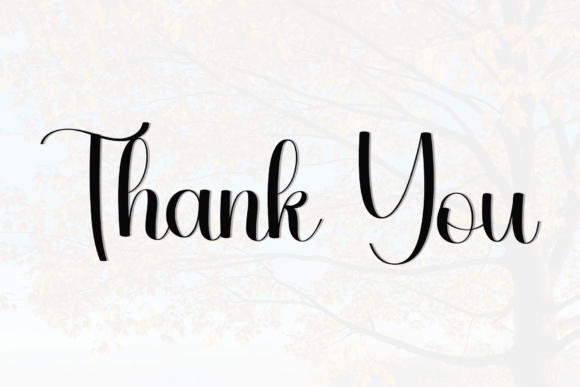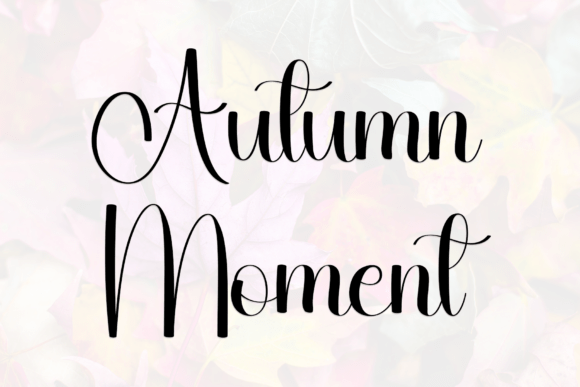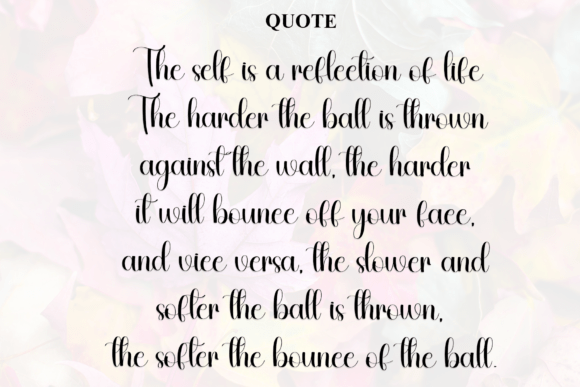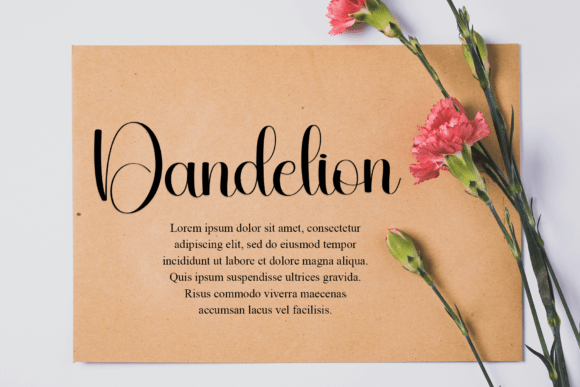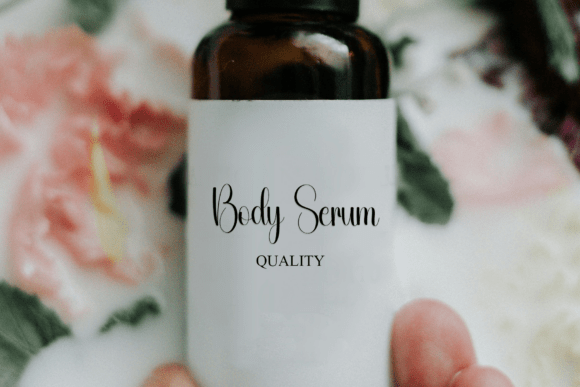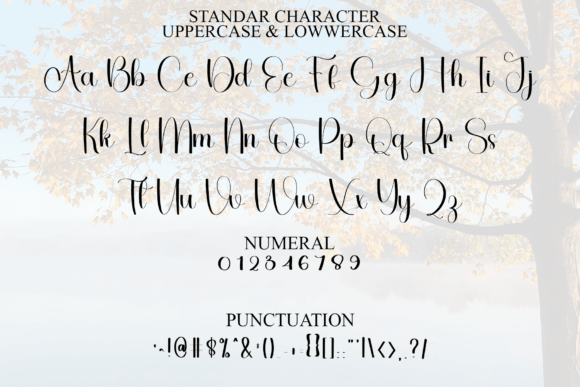
The Magic of Autumn Font: A Designer’s Delight
I’ll never forget the time I was working on a branding project for a cozy coffee shop. I had the logo concept nailed, but something was missing – the perfect font. I scrolled through page after page of Google Fonts, but nothing seemed quite right. That’s when I stumbled upon Autumn Font, and it was love at first sight! 💕
Autumn Font is a lovely and timeless handwritten font that’s perfect for creating eye-catching logos, branding, and quotes. Every letter has a unique and beautiful touch, which will make your design come alive!
- ✨ Unique and beautiful letterforms that add a personal touch to any design
- 💫 Supports OpenType features, glyphs, and stylistic alternates for added versatility
- 🎨 Perfect for a wide range of design projects, from logos and branding to quotes and social media graphics
While Autumn Font is an amazing choice for many design projects, there are a few things to keep in mind:
- ⚠️ Some users have reported issues with kerning on certain letter combinations – but this can usually be adjusted manually.
- 🤔 The font may not be the best choice for body text or long-form writing, as it’s designed to be attention-grabbing and statement-making.
The Story Behind Autumn Font
Autumn Font was designed by a talented type designer who’s passionate about creating beautiful, hand-crafted fonts. The story goes that the designer was inspired by the warm, golden tones of autumn leaves and wanted to capture that feeling in a font. And so, Autumn Font was born!
Q: What is Autumn Font?
A: Autumn Font is a lovely and timeless handwritten font that’s perfect for creating eye-catching logos, branding, and quotes.
Q: Is Autumn Font easy to read?
A: Yes, Autumn Font is highly legible, even at small sizes, making it perfect for a wide range of design projects.